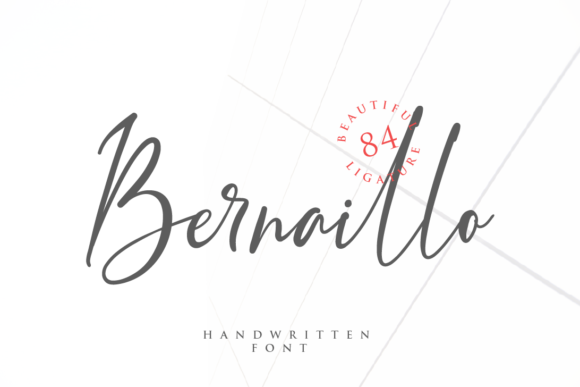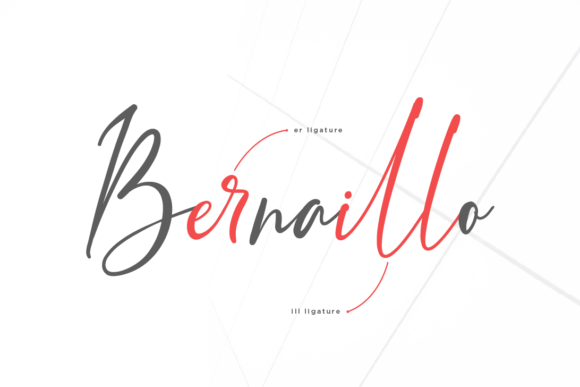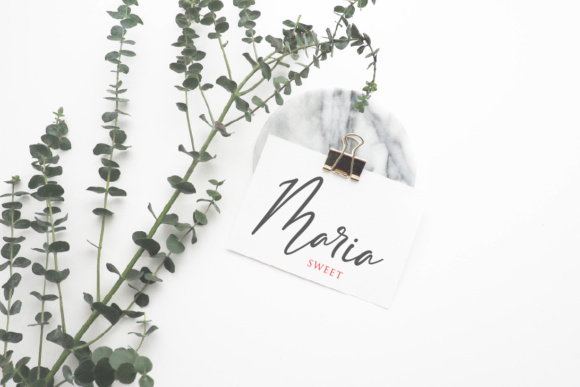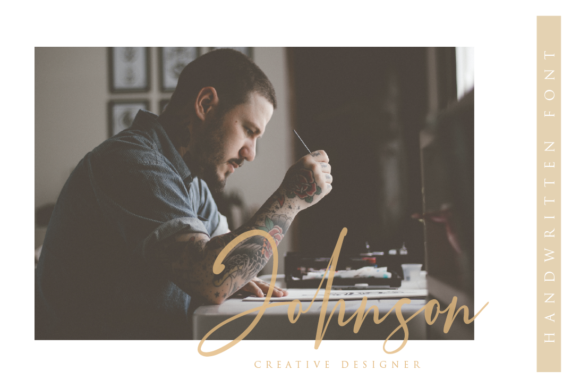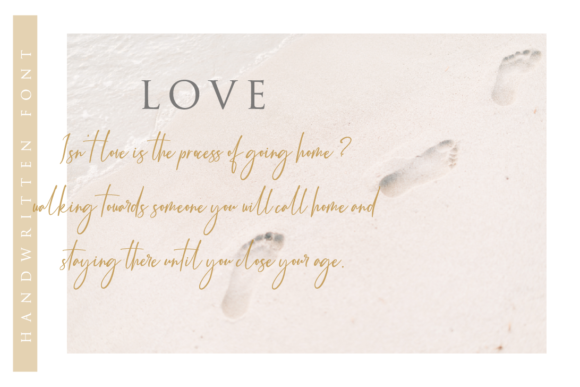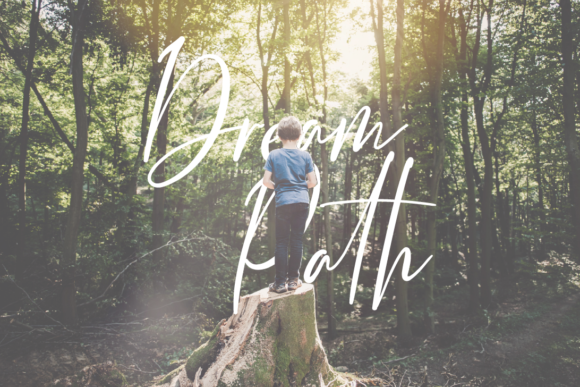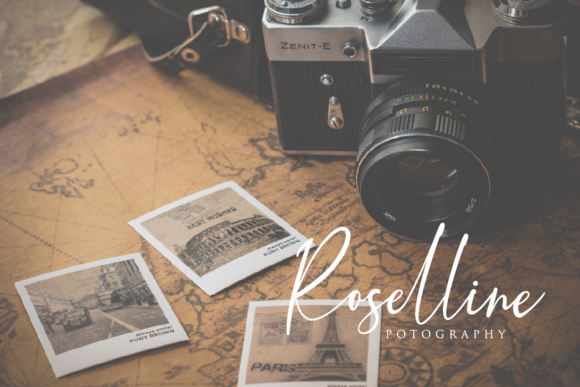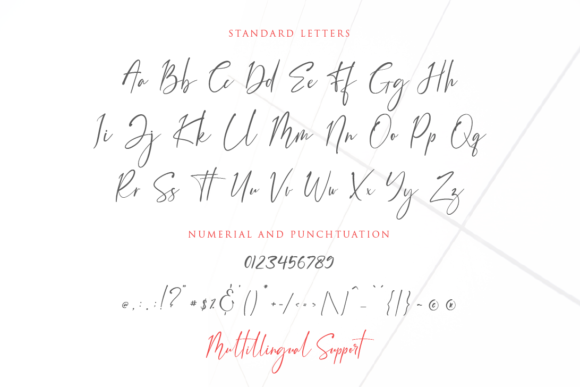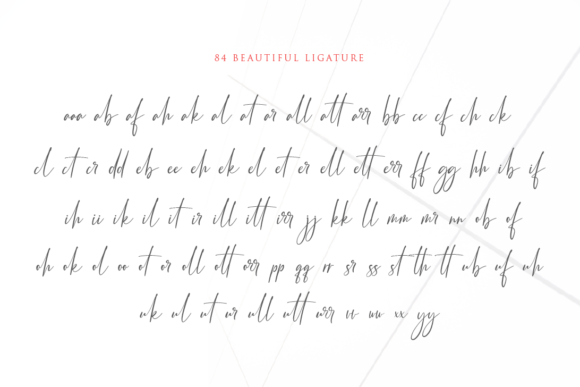
Bernaillo Font
About Bernaillo Font
Introducing “The Bernaillo,” an original handwritten font designed with a modern and elegant style, perfect for creating upscale and chic designs. This font is not just a typeface; it’s a sophisticated design tool crafted to bring a touch of class to your creative projects.
“The Bernaillo” offers a contemporary handwritten style that exudes both modernity and elegance. Whether you’re incorporating it into watermarks, signature logos, business cards, brand names, or any design that requires a chic touch, this font provides a refined and upscale aesthetic.
Its versatility allows “The Bernaillo” to adapt seamlessly to different design contexts. Watermarks benefit from the font’s elegant style, adding a subtle and classy touch to your visuals. Signatures and signature logos are elevated with a sophisticated flair, making your brand name stand out with modern elegance.
Business cards and brand names designed with “The Bernaillo” carry an upscale and chic appeal, leaving a lasting impression on your audience. The font’s modern and elegant demeanor ensures that your designs remain stylish and sophisticated.
In summary, “The Bernaillo” is more than just a font; it’s a design companion that brings a modern and elegant handwritten style to your upscale and chic designs. Embrace its sophistication for watermarks, signatures, business cards, and more, and let “The Bernaillo” add a touch of contemporary elegance to your creative endeavors.